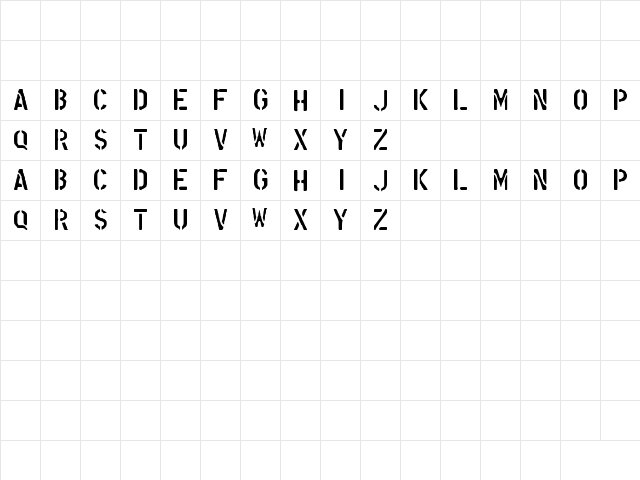
N&D font Regular
Design Context for N&D font Typeface
N&D font is a composed and adaptable typeface that performs quietly and consistently across a wide range of design contexts.